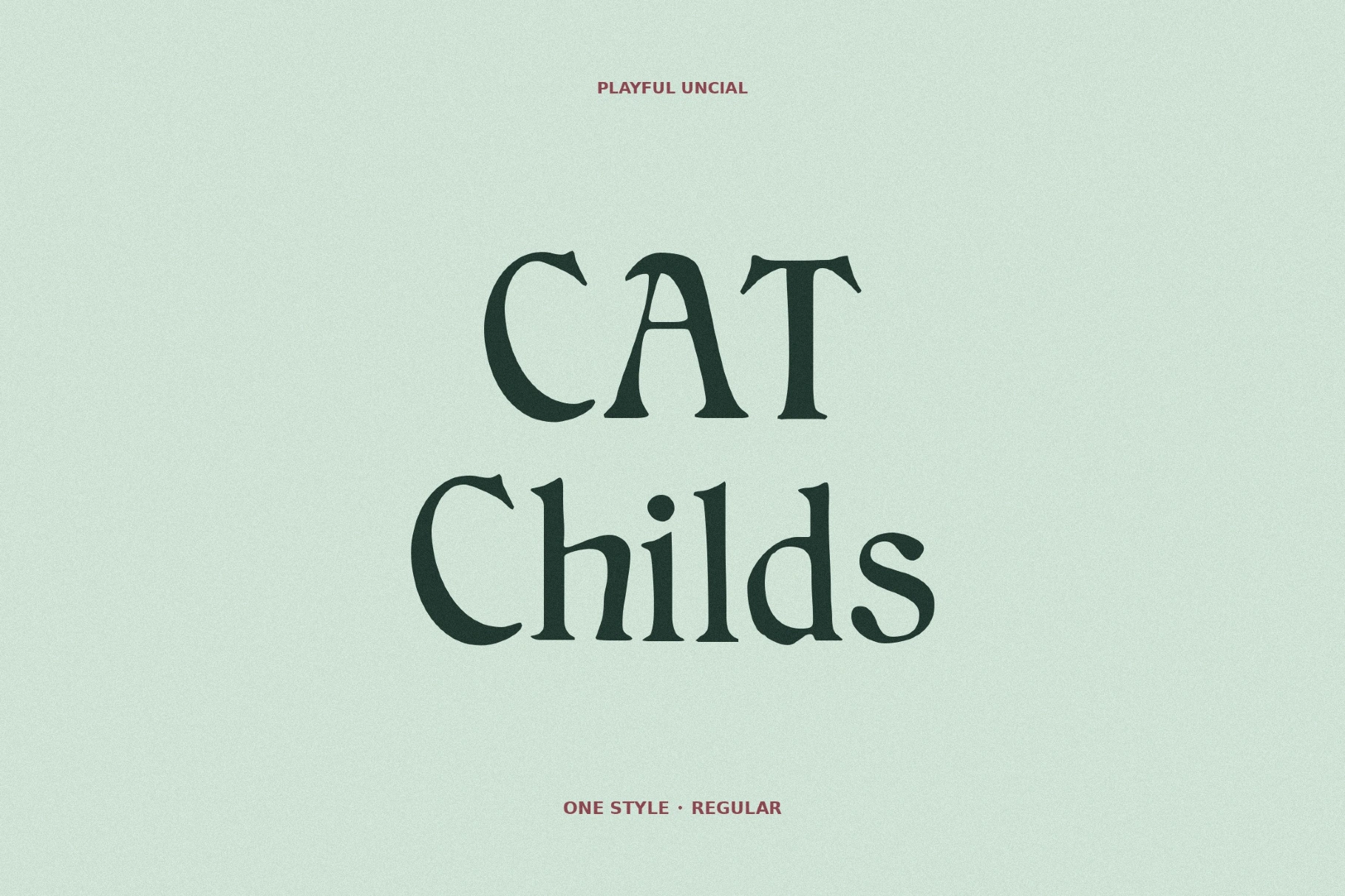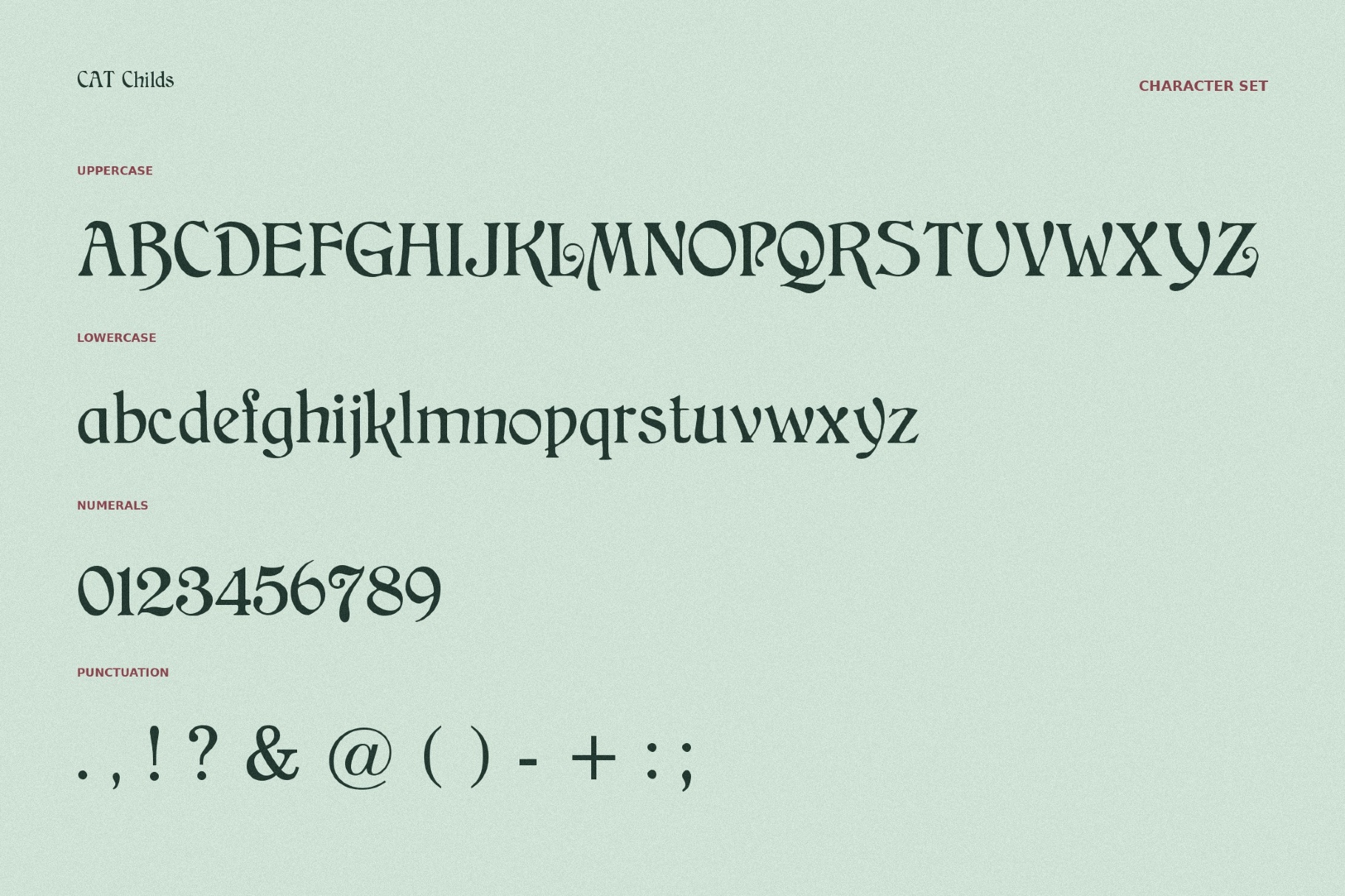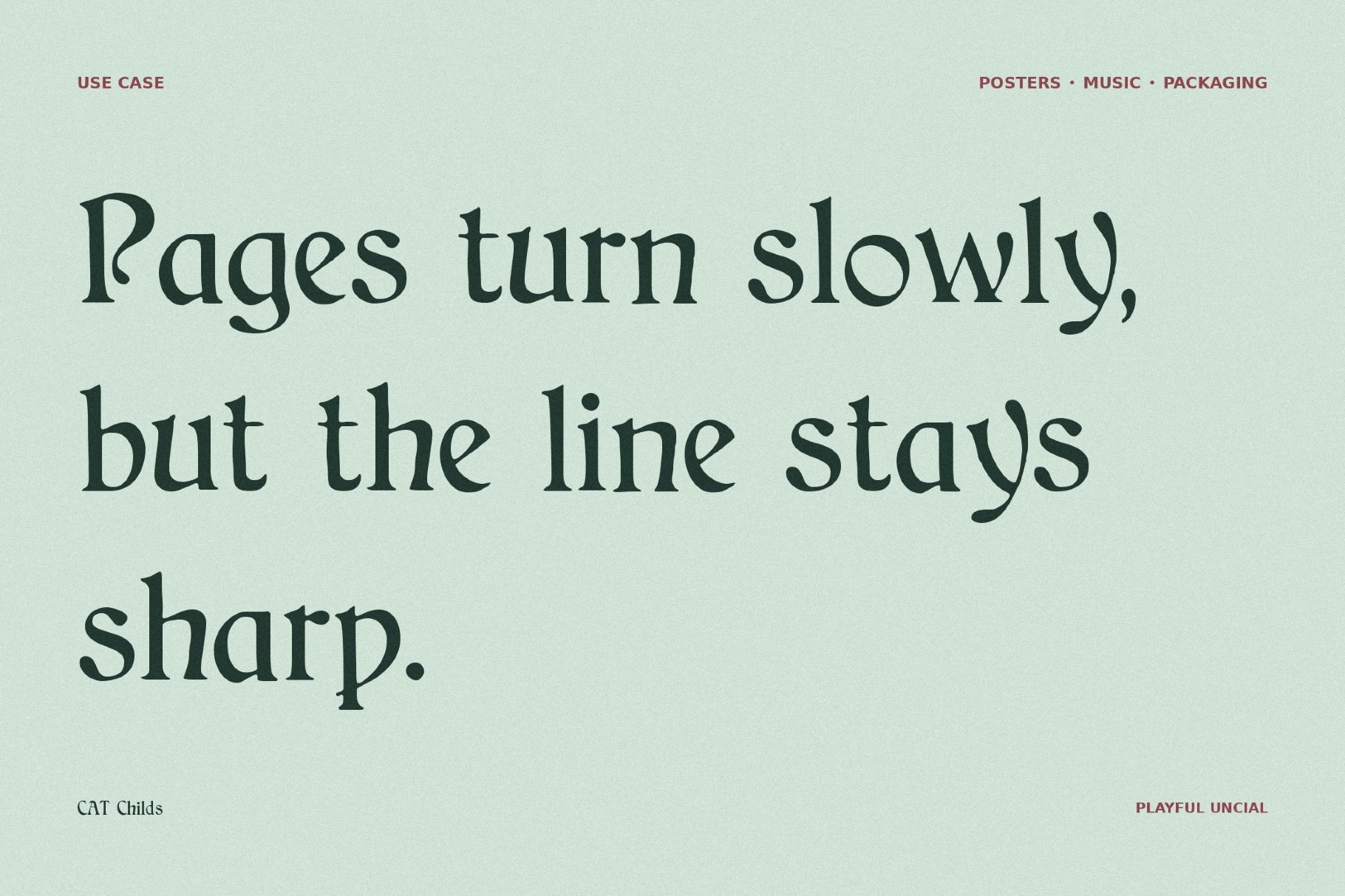
CAT Childs - Free Fantasy Font
CAT Childs reminds you of a storybook title discovered in an attic, charming at first glance and slightly strange the longer you look at it. The elegant font combines flared serif details, soft curves, and theatrical proportions that sit somewhere between Victorian playbills, Gothic tales, and stage lettering.
Useful for children’s book covers, fantasy branding, boutique packaging, Halloween invitations, theater posters, editorial headlines, logo marks, toy packaging, and illustrated chapter openers.